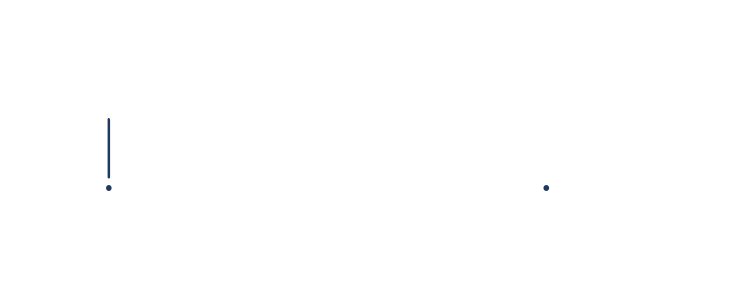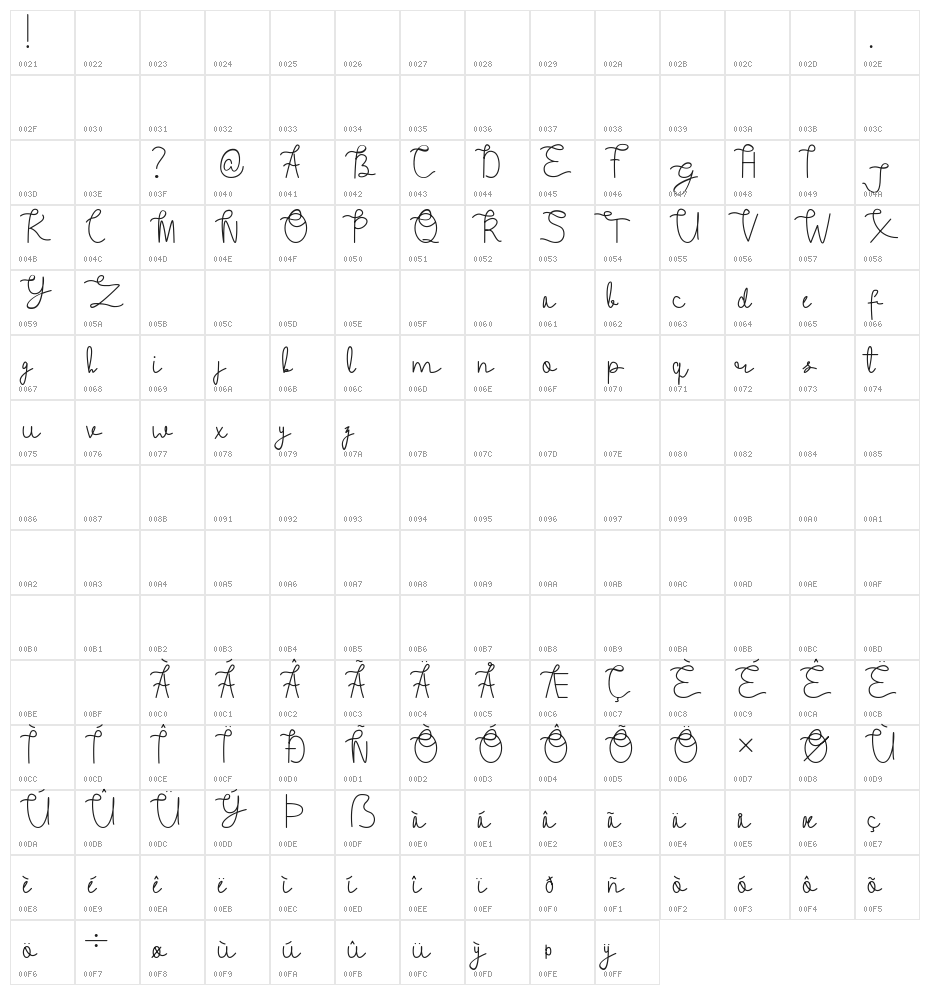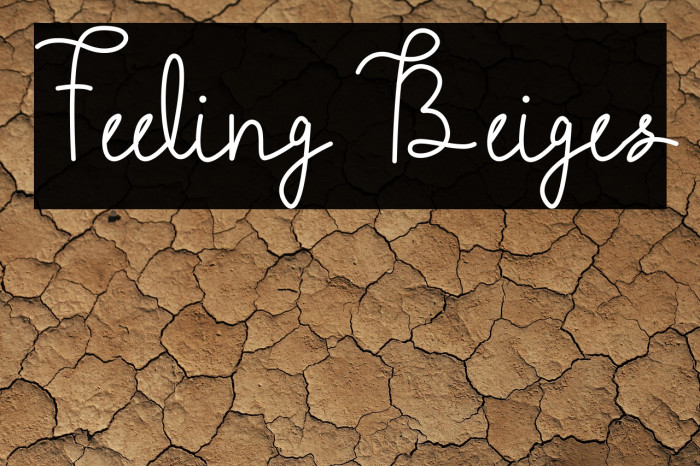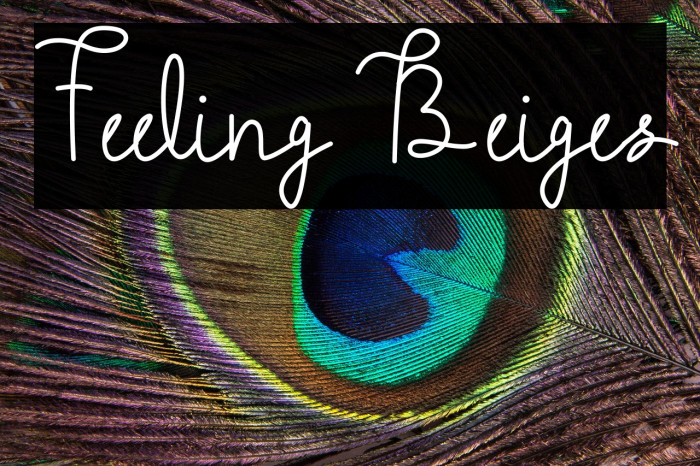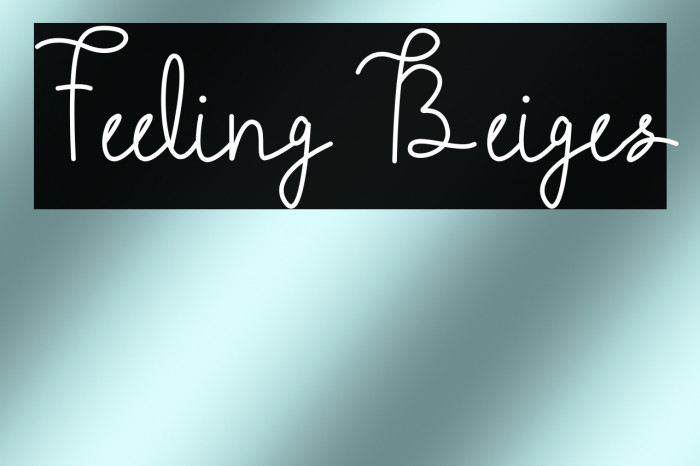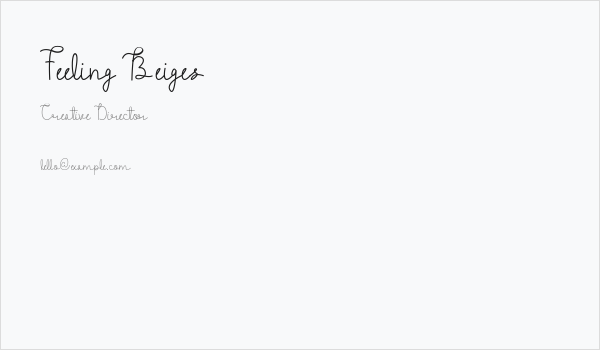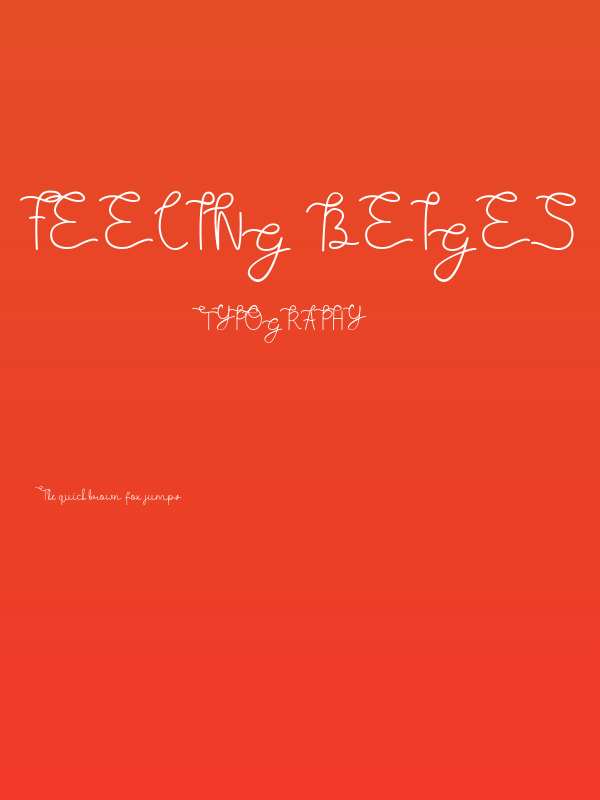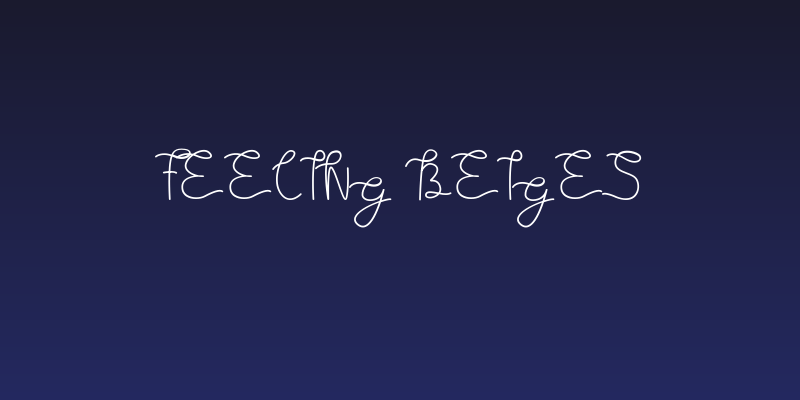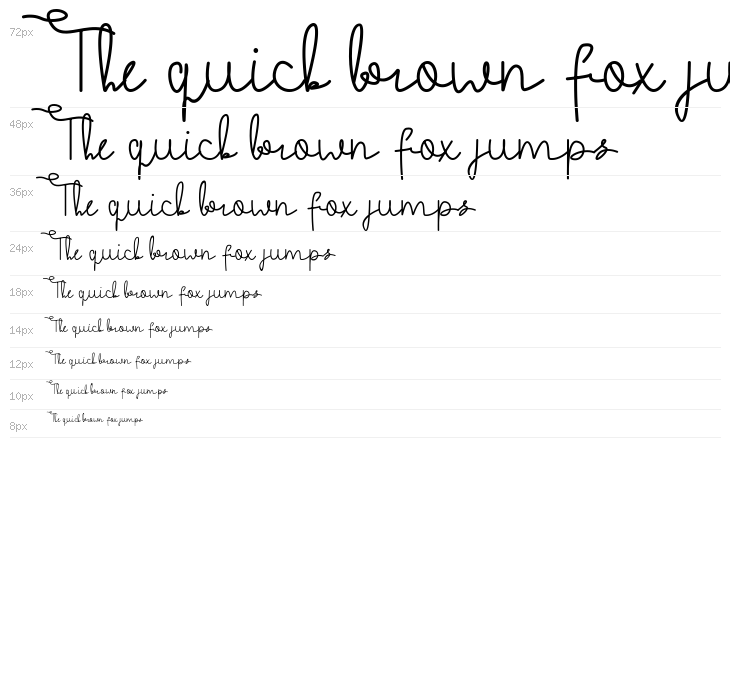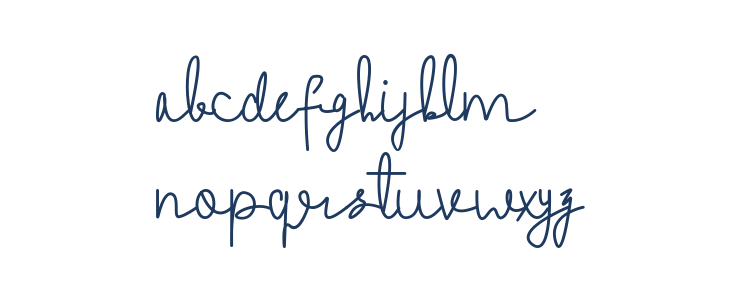
Feeling Beiges Font
Feeling Beiges Description
This font features a playful and whimsical handwritten style, characterized by its flowing and interconnected letterforms. The uppercase letters exhibit a unique blend of curves and loops, creating an elegant yet casual appearance. The lowercase letters maintain a consistent style with smooth transitions and a slightly slanted orientation, enhancing the font's dynamic feel. The overall design is light and airy, with a moderate contrast in stroke thickness that adds to its legibility. The spacing between characters is relatively tight, which contributes to its cohesive look. This font is ideal for projects that require a personal touch, such as invitations, greeting cards, or branding materials that aim to convey warmth and approachability.
Overall StyleWhimsical
Use CaseInvitations, Greeting cards, Personal branding
Proposed ProjectsIdeal for invitations, greeting cards, personal branding, and creative projects requiring a warm, approachable feel.